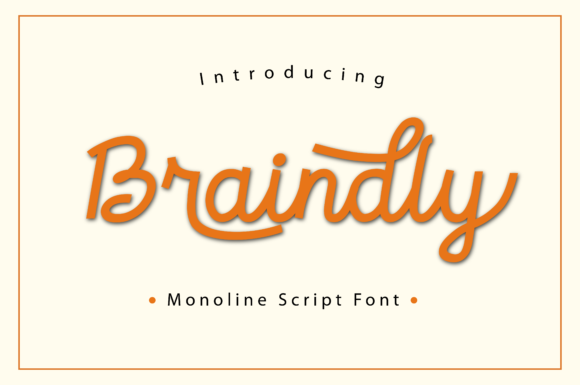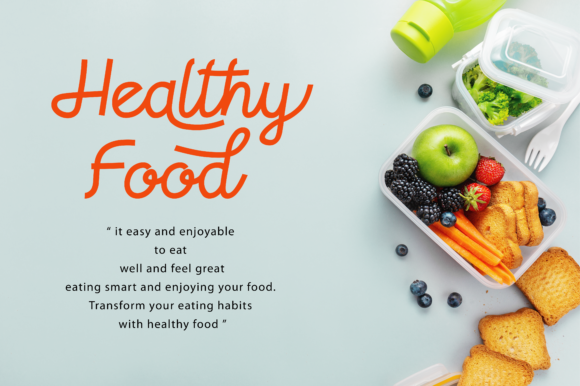
About Braindly Font
Braindly font is a monoline script font that is used for various design purposes such as headlines, text, T-shirts, greeting cards, and much more!